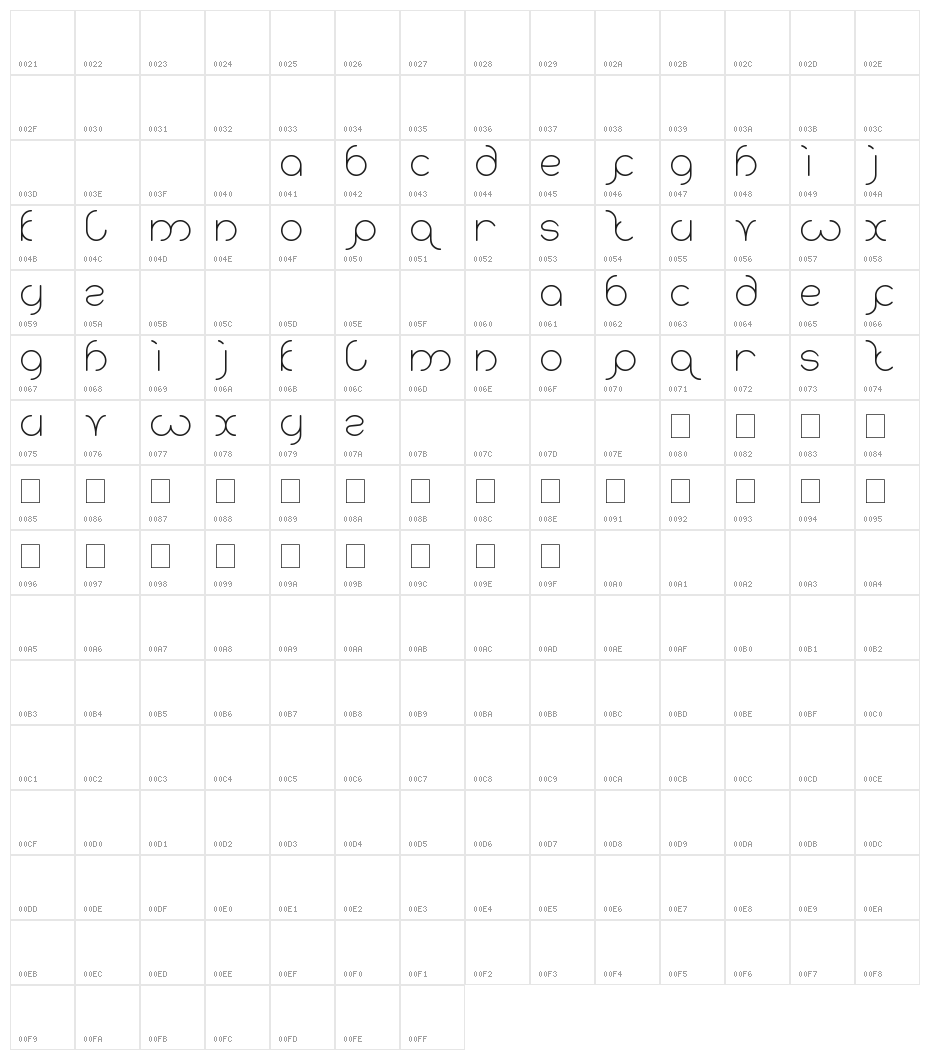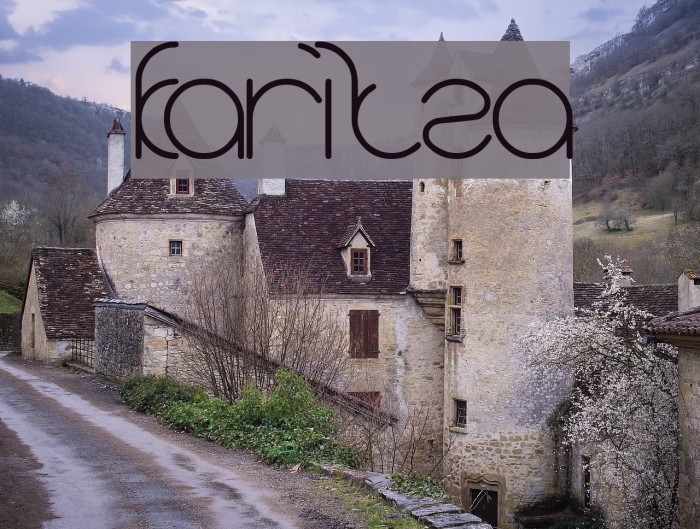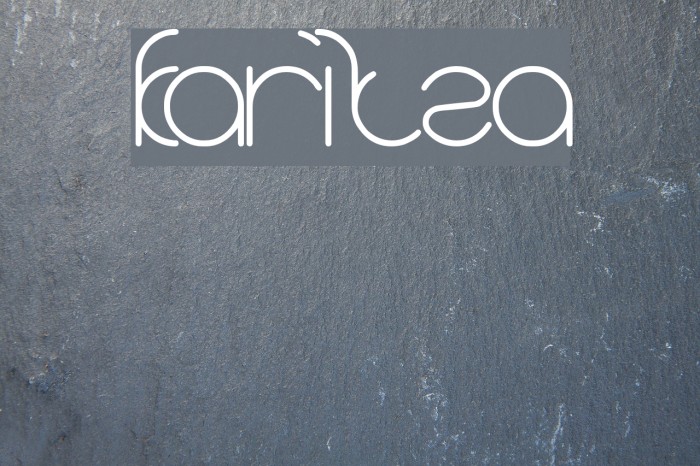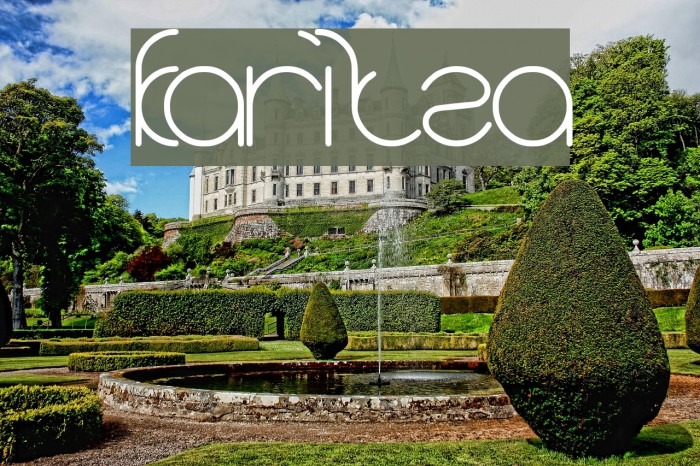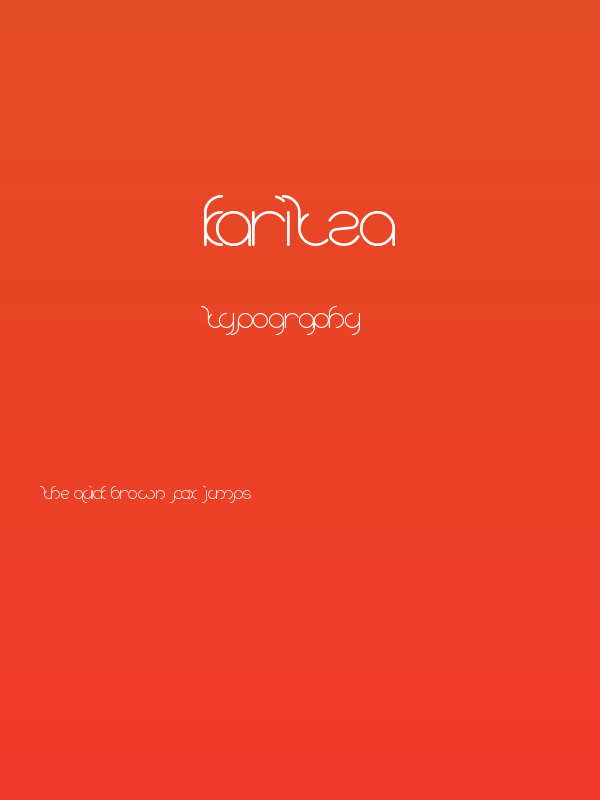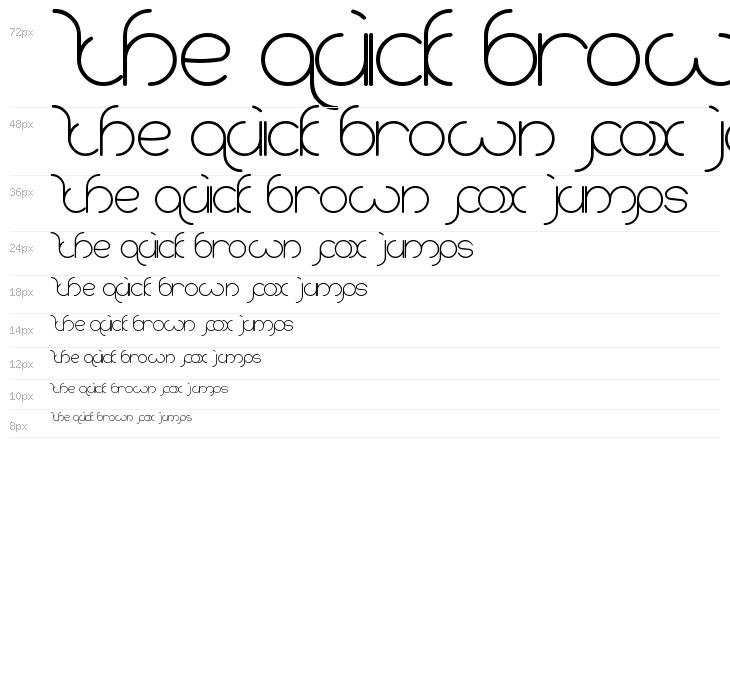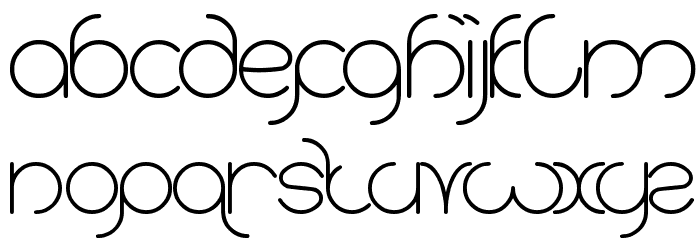
Karitza Font
Karitza Description
This font features a unique and modern design with a playful twist. The characters are formed with smooth, continuous lines that create a sense of fluidity and motion. Each letter has a distinctive loop or curve, adding an artistic flair. The overall appearance is clean and minimalistic, yet it maintains a decorative quality that makes it stand out. The font is well-suited for creative projects that require a touch of elegance and innovation. Its design is both contemporary and timeless, making it versatile for various applications.
| Use Case | Logos, Headlines, Creative design |
| Proposed Projects | Ideal for branding, logos, packaging, and creative design projects. |